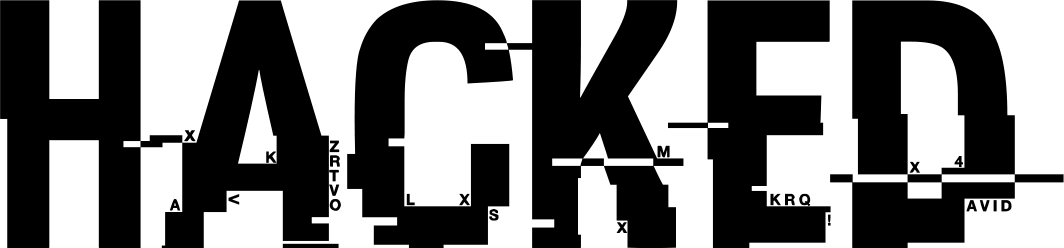
HACKED Font
Every hacker movie can be distinguished by its distorted font. Hacked is one of them, and it has a glitchy character design. It has a modern and edgy look and will convey a dangerous and serious feeling to the reader.
You can use it to write computer books and movie titles, theater posters, tattoo prints, or mysterious literature. This one’s letters are all-caps.